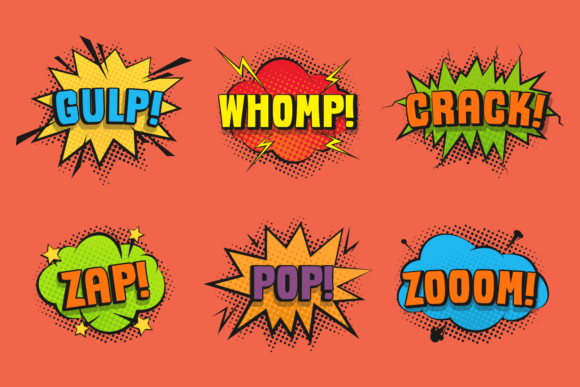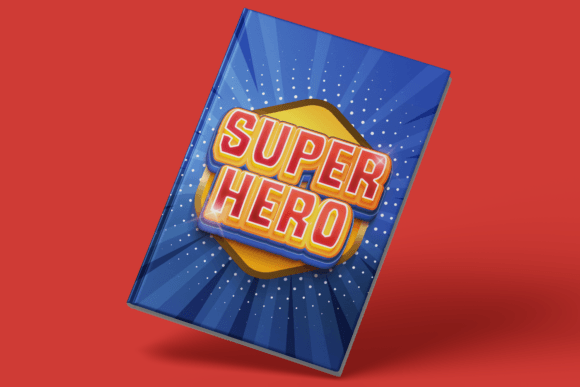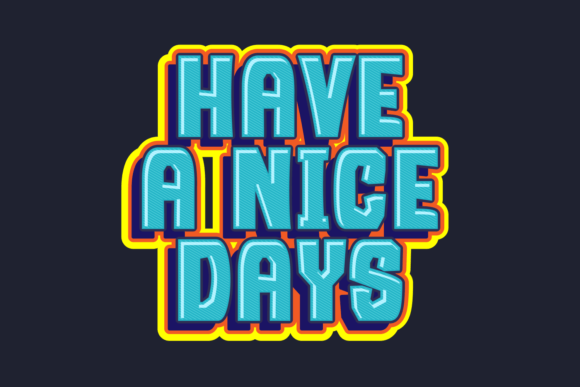
The Spark of Creativity
Remember that moment when a spark of creativity hit you, and you knew exactly how to bring your idea to life? For many designers, it’s the perfect blend of imagination and typography that sets the wheels in motion. Whether you’re crafting a new book cover, designing a product, or creating an eye-catching advertisement, the right font can be the game-changer that elevates your design to the next level.
Enter Inner Power Font, a vibrant and chunky display font that’s guaranteed to bring your creative vision to life. Inspired by the playful styles of cartoons and comic books, this fabulous typeface is perfect for making a statement. With Inner Power Font, you can add a touch of whimsy and fun to your designs, making it a valuable addition to any designer’s toolkit.
Inner Power Font Key Features
- Font Family: Inner Power Font is a unique, custom-designed font family.
- Size: The font family includes multiple weights and styles, ranging from Thin (100) to Black (900), with 7 styles in total.
- Unique Characteristics: Inner Power Font features a dynamic, energetic design with a mix of geometric and organic elements, making it suitable for various design applications, including logos, headings, and body text.
Inner Power Font Review
Overall, I found the Inner Power Font to be a decent addition to any design project. ✨ Here are a few things that stood out to me:
- ✨ High energy and dynamism: The font effectively conveys a sense of power and motivation, which is perfect for projects that require a boost of enthusiasm.
- ✨ Versatility: The Inner Power Font is suitable for a wide range of applications, from advertising and marketing to digital products and more.
- ✨ Customizable: The font offers various font styles, including bold, italic, and regular, which makes it easy to adapt to different design requirements.
However, I did encounter a few limitations that may affect its overall performance:
- ⚠️ Limited readability: At smaller font sizes, the Inner Power Font can become quite difficult to read, especially for those with visual impairments.
- ⚠️ Limited cross-platform compatibility: I noticed some inconsistencies in the font’s rendering across different operating systems and devices.
In conclusion, while the Inner Power Font has its strengths, its limitations prevent it from being a top choice for all design projects. It’s still a solid option for those who need a high-energy font for specific applications, but it’s essential to weigh its pros and cons before making a decision.
Getting the Most Out of the Inner Power Font
To get the most out of the Inner Power Font, consider the following tips:
- Use the font in bold or italic styles to add emphasis.
- Combine the font with other design elements to create a cohesive look.
The Inner Power Font is commonly used in:
- Personal branding and marketing materials.
- Business presentations and proposals.
Alternatives to Inner Power Font
Great Vibes is a modern, elegant script font perfect for creating a sense of sophistication and luxury. It’s ideal for use in branding, advertising, and editorial design.
Comparison to Inner Power Font: While both fonts are script-based, Great Vibes is more refined and polished, making it a better choice for high-end designs. Inner Power Font, on the other hand, has a more playful and energetic feel.
Carolyna Pro is a stylish, modern script font that’s perfect for creating a sense of elegance and sophistication. It’s ideal for use in branding, packaging, and editorial design.
Comparison to Inner Power Font: Carolyna Pro has a more refined and polished look compared to Inner Power Font, making it a better choice for high-end designs. Inner Power Font has a more playful and energetic feel, making it suitable for younger or more casual designs.